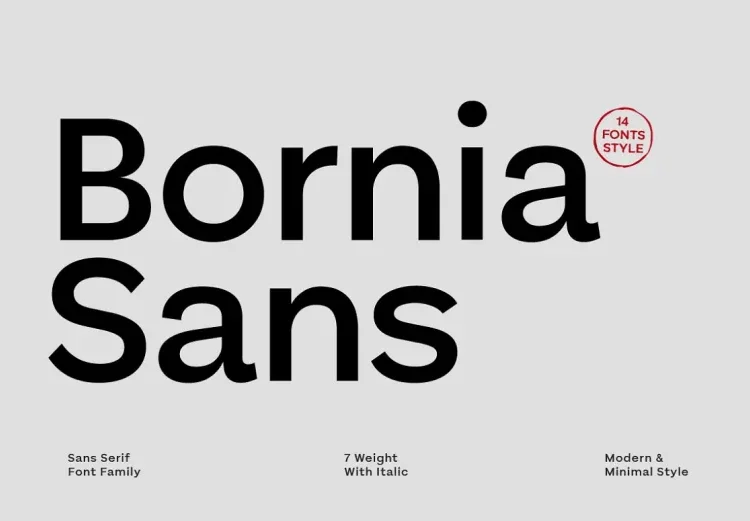
Bornia Sans Font
Bornia is a modern minimal sans serif font family that strikes a balance between elegance and simplicity, ensuring a lasting impression in any design. With its clean and contemporary aesthetic, Bornia is available in a range of weights from light to dark, providing versatile options to enhance the appeal and charm of your projects.
Whether you’re working on sleek branding, sophisticated headlines, or stylish print materials, Bornia offers a refined and impactful look. Its minimalist design makes it a great choice for creating striking visual effects while maintaining clarity and professionalism.